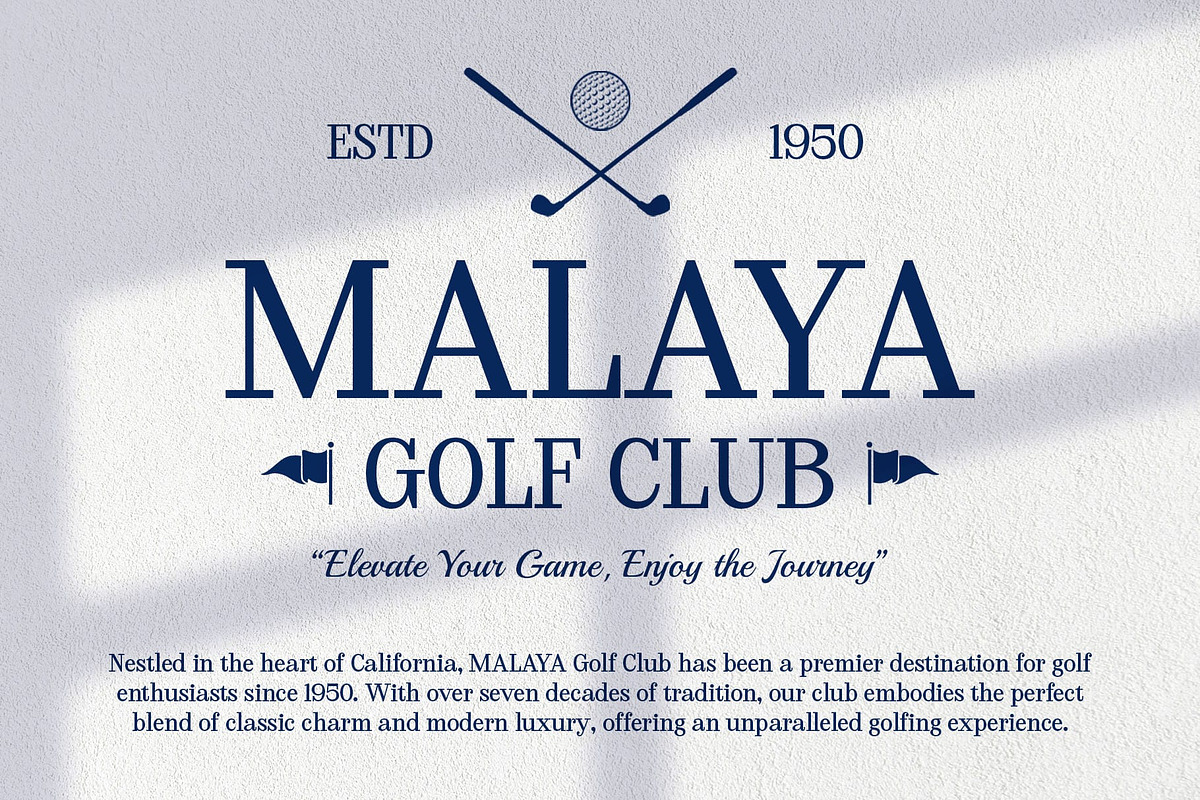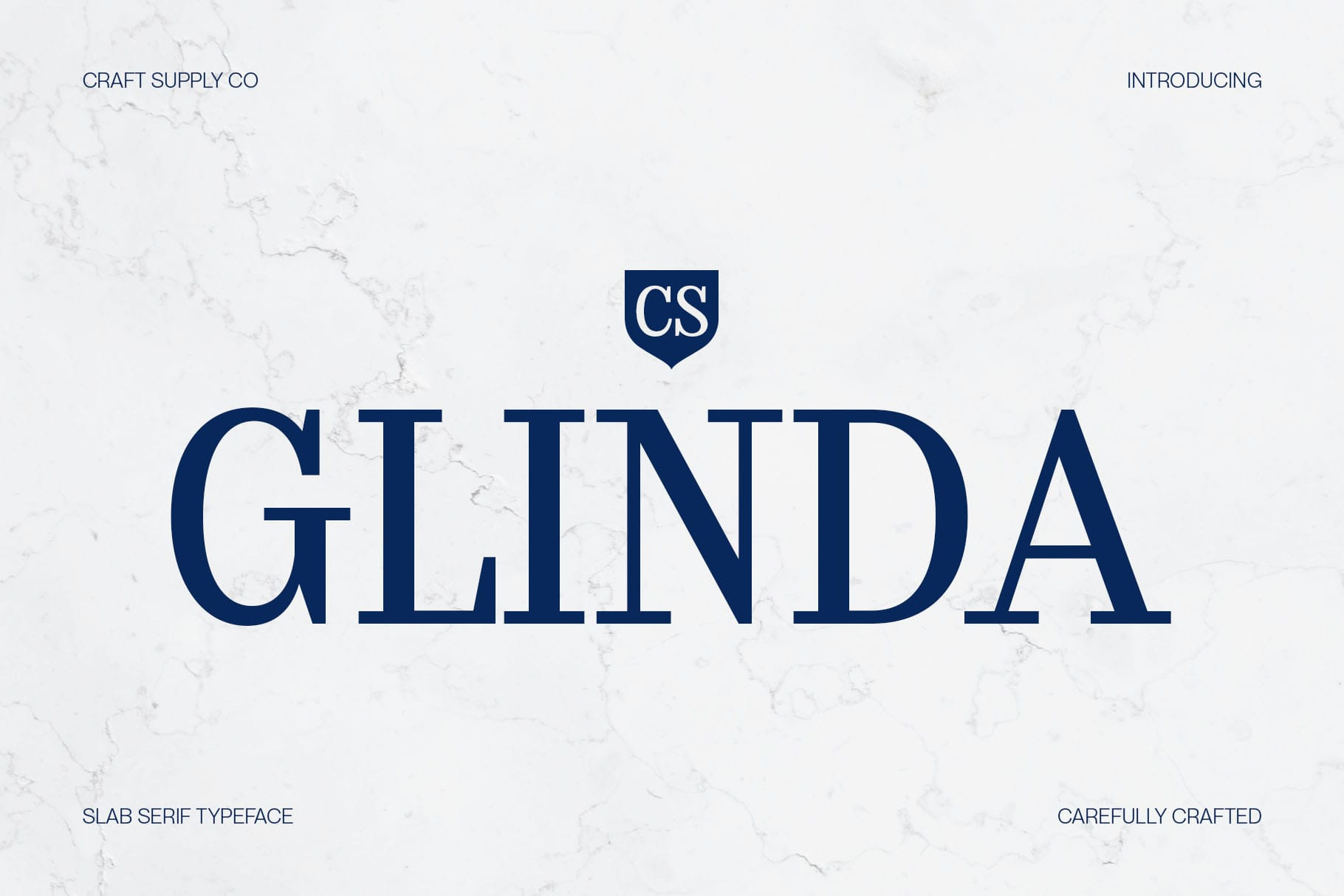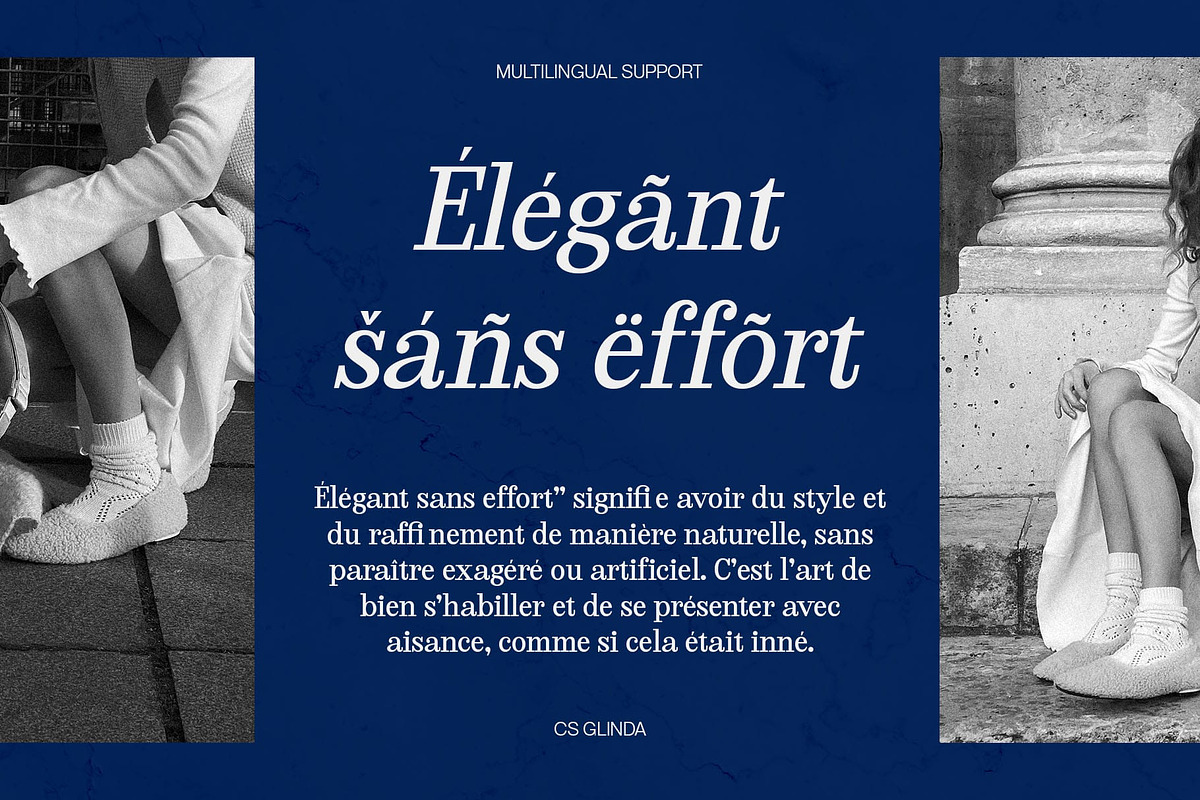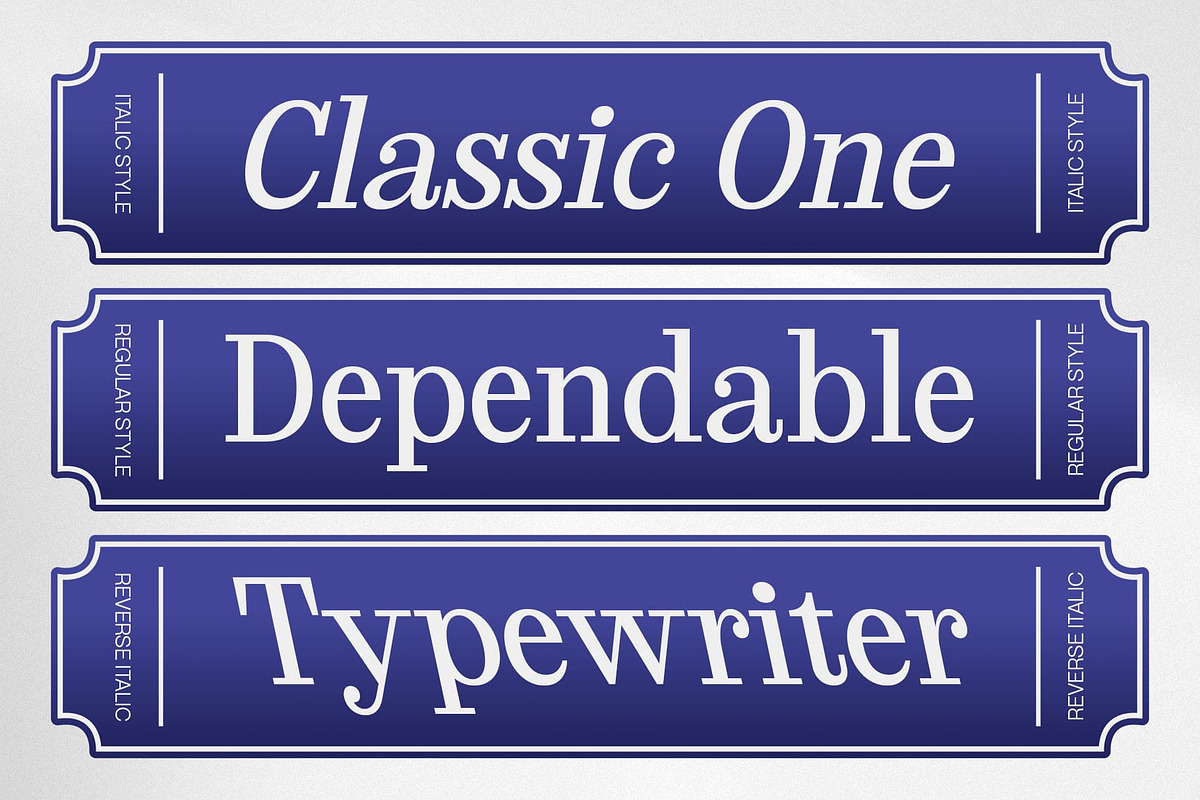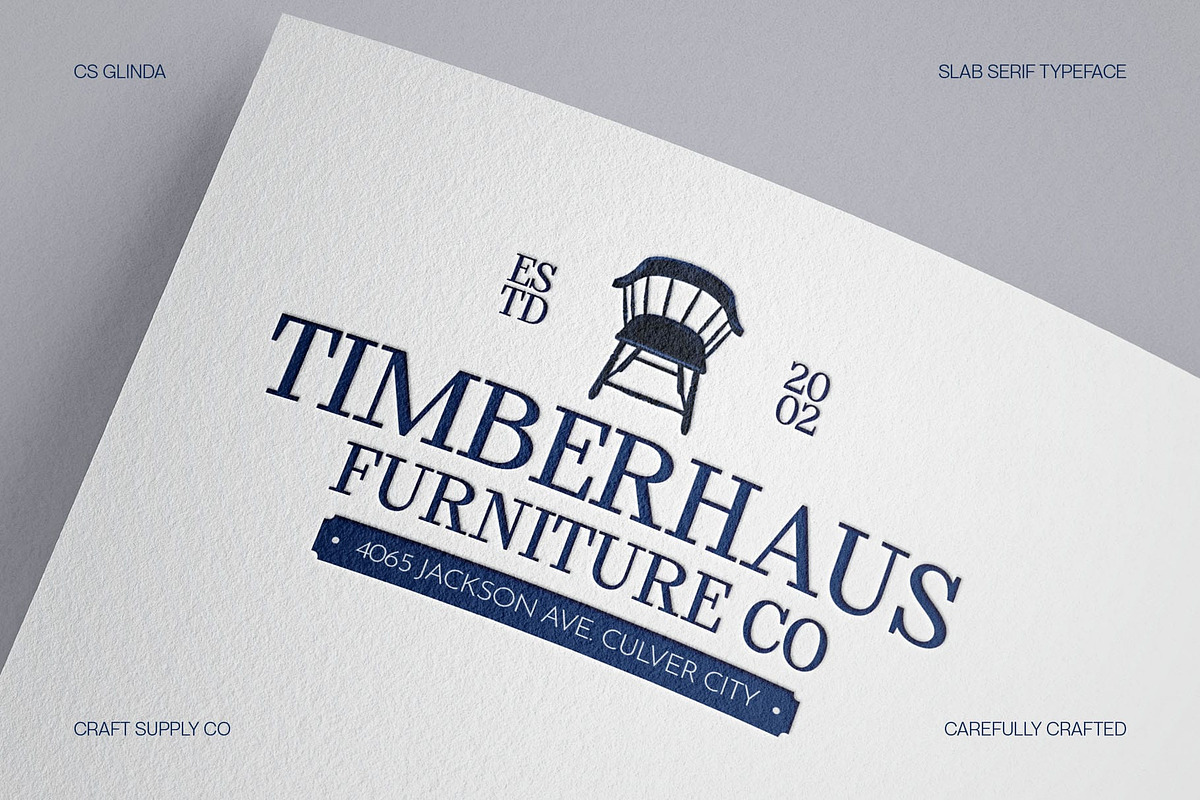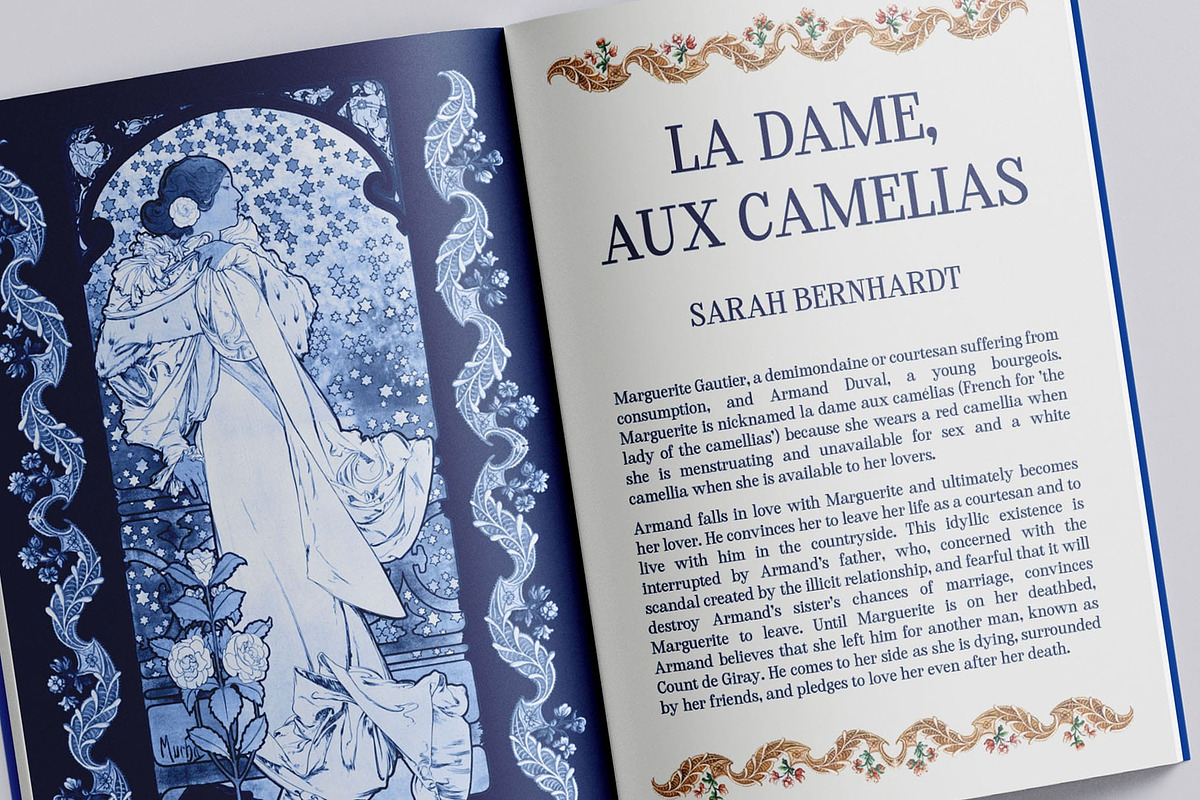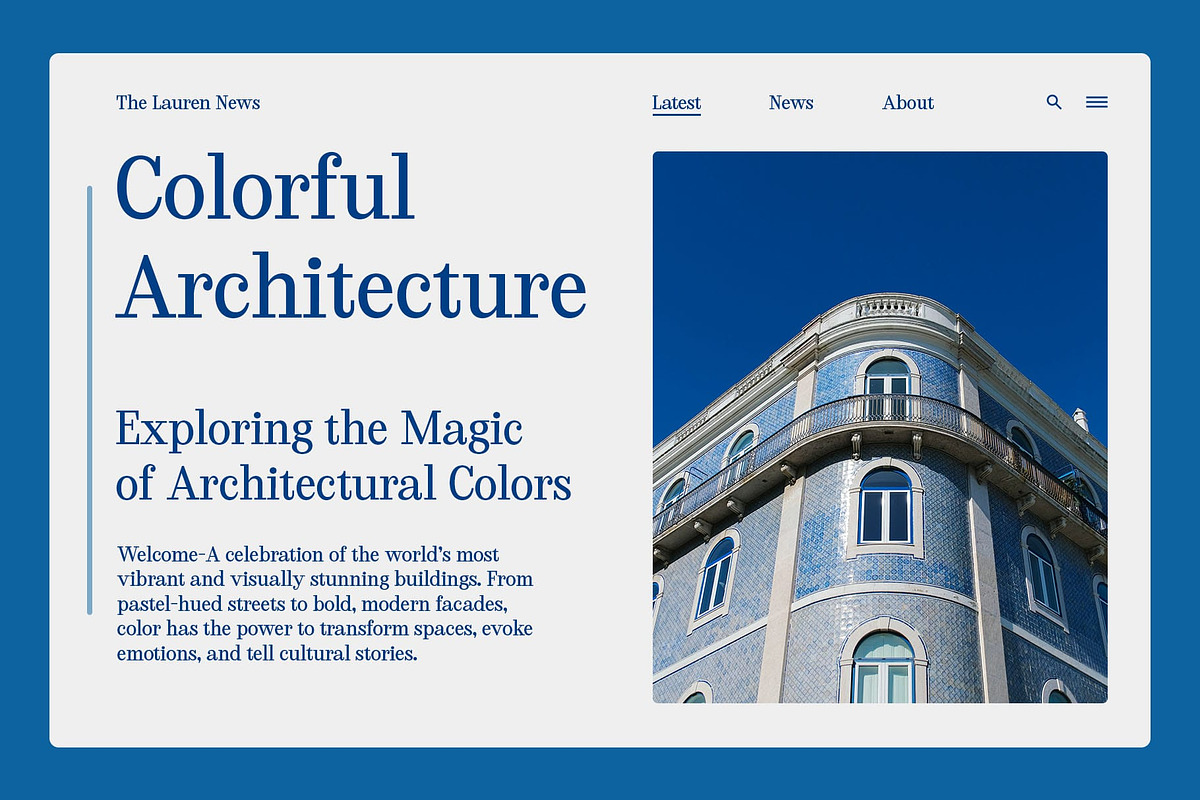
CS Glinda – Contemporary Font
CS Glinda – Contemporary Font: A Perfect Blend of Strength and Elegance
A Modern Slab Serif with a Contemporary Edge CS Glinda – Contemporary Font is a modern slab serif typeface that merges classic serif characteristics with a clean, contemporary aesthetic. It features bold and structured serifs, offering a strong yet refined presence that makes a lasting impact. Designed to be both professional and visually commanding, this font brings authority and sophistication to any design.
Bold Serifs for a Strong and Professional Look The defining feature of CS Glinda lies in its bold and confident serifs, which add a sense of stability and reliability to the typography. The combination of sharp lines and smooth curves creates a balanced visual appeal, making it an excellent choice for corporate branding, editorial layouts, and packaging design.
Balancing Tradition with Modernity CS Glinda effortlessly bridges the gap between classic slab serif structures and modern typographic trends. Its well-proportioned letterforms provide a timeless elegance, making it adaptable for both traditional and forward-thinking design applications. Whether for professional reports, business websites, or luxury product packaging, this font ensures a strong and distinguished identity.
- CS Glinda Regular
- CS Glinda Italic
- CS Glinda Reverse Italic